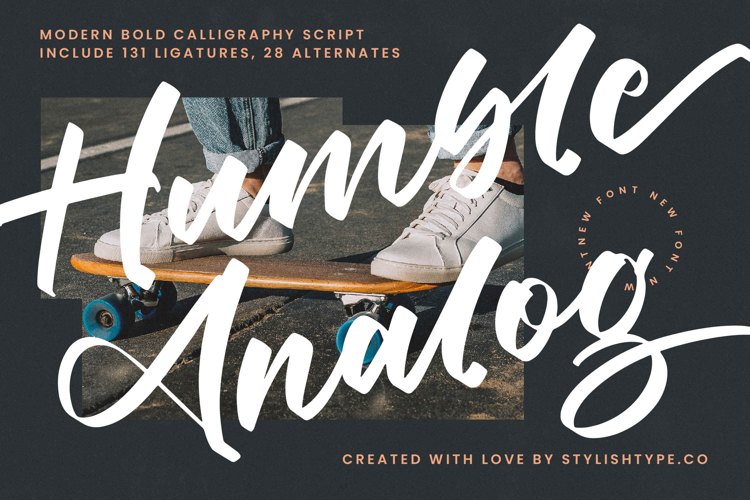
Humble Analog - Modern Bold Calligraphy Script
Elevate your designs with the undeniable charm of Font Humble Analog - Modern Bold Calligraphy Script Script. This captivating typeface masterfully blends authentic calligraphy with a distinctly modern, bold aesthetic. Its energetic strokes and fluid connections create an impression of effortless sophistication, ensuring your message stands out with dynamic personality and contemporary flair.
Discover unparalleled design flexibility with every character of Font Humble Analog - Modern Bold Calligraphy Script Script. Engineered for expressive typography, this font boasts a rich character set, including 131 ligatures and 28 alternates. These features empower designers to craft truly unique typographic compositions, injecting an artisanal touch and bespoke feel into every project, enhancing both readability and visual appeal.
Reach a wider audience and ensure global resonance with the inherent adaptability of this font. With its extensive multilingual support, Font Humble Analog - Modern Bold Calligraphy Script Script adapts seamlessly across global markets, making it incredibly versatile for international projects. This capability ensures your brand's voice maintains its impact and authenticity, fostering broader engagement.